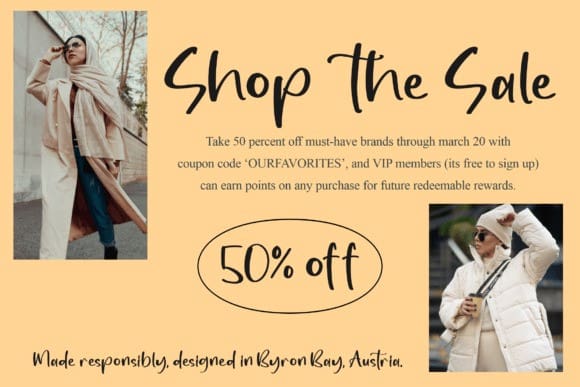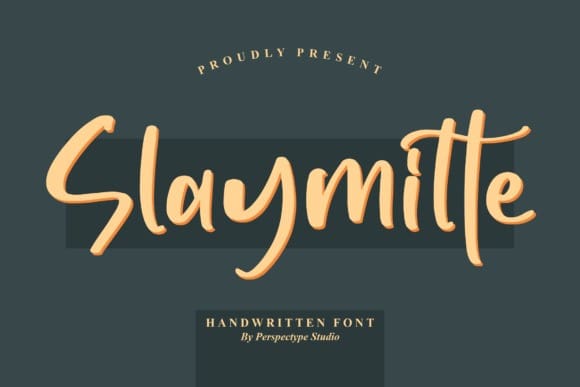
Slaymitte Hand Font
Slaymitte Hand Font is an amazing handwritten font suitable for logos, branding projects, homeware designs, product packaging, mugs, quotes, posters, shopping bags, T-shirts, book covers, name cards, invitation cards, greeting cards, labels, photography, watermark, special events, and all your other lovely projects that need a beautiful touch.